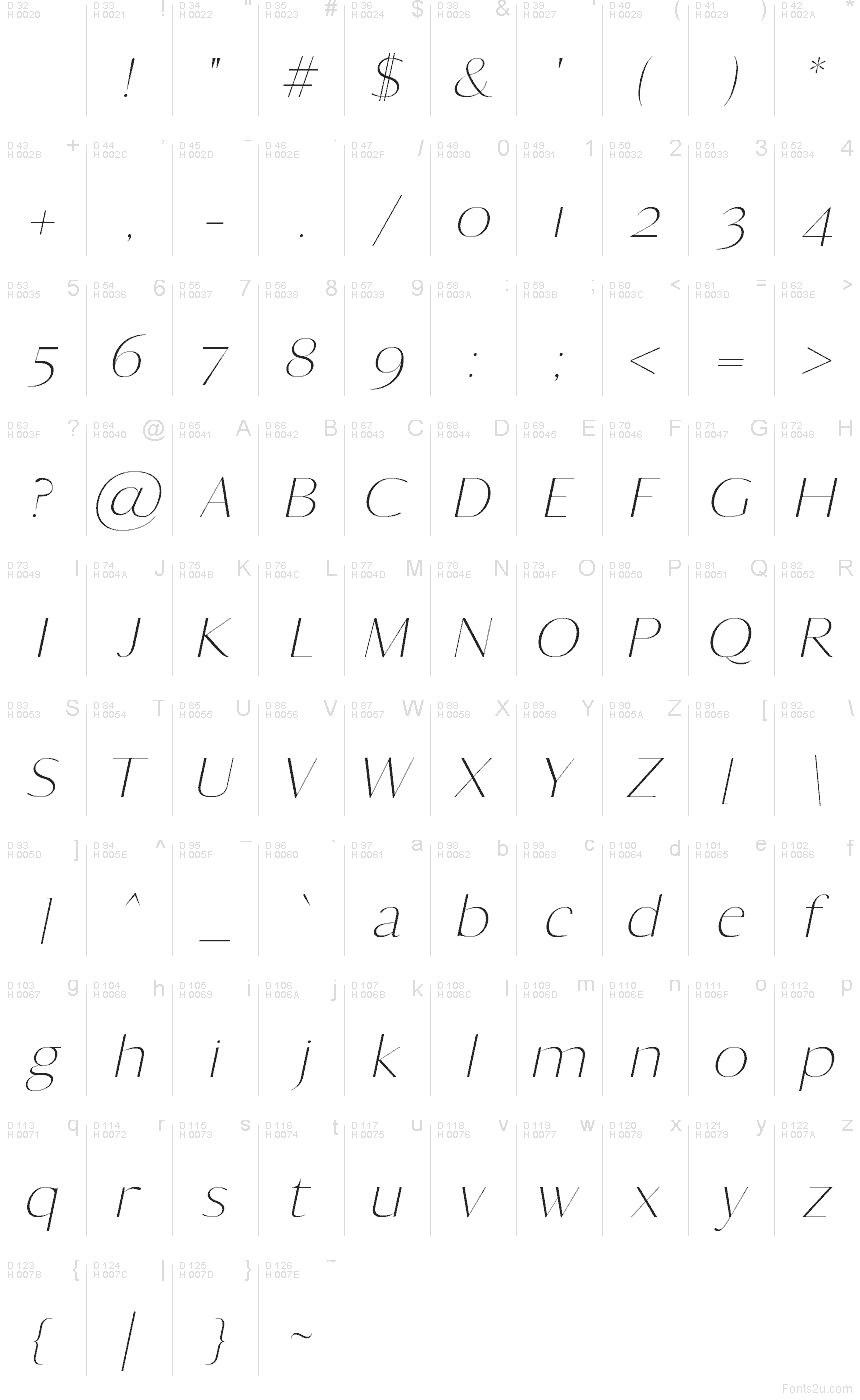
CHERRY DEMO Italic
Cherry Italic font by Minimalartstudio is a free elegant sans serif typeface with a dramatic forward slant and hairline strokes that feel almost drawn with a fine ink pen. Letters stretch tall and narrow, with generous air between them, giving every word a runway-model posture. The Cherry family’s italic cut feels both delicate and decisive, making short phrases and names look instantly styled and editorial.
Using Cherry Italic, headlines and wordmarks take on a sleek, fashion-magazine vibe that works beautifully for beauty branding, luxury packaging, posters, logotypes, magazine covers, and social media graphics. This free font thrives at large sizes where its slim forms can fully breathe. Pair it with a simple geometric sans in regular weight for body copy, letting Cherry Italic handle names, taglines, and key phrases that need a refined, whisper-thin emphasis.